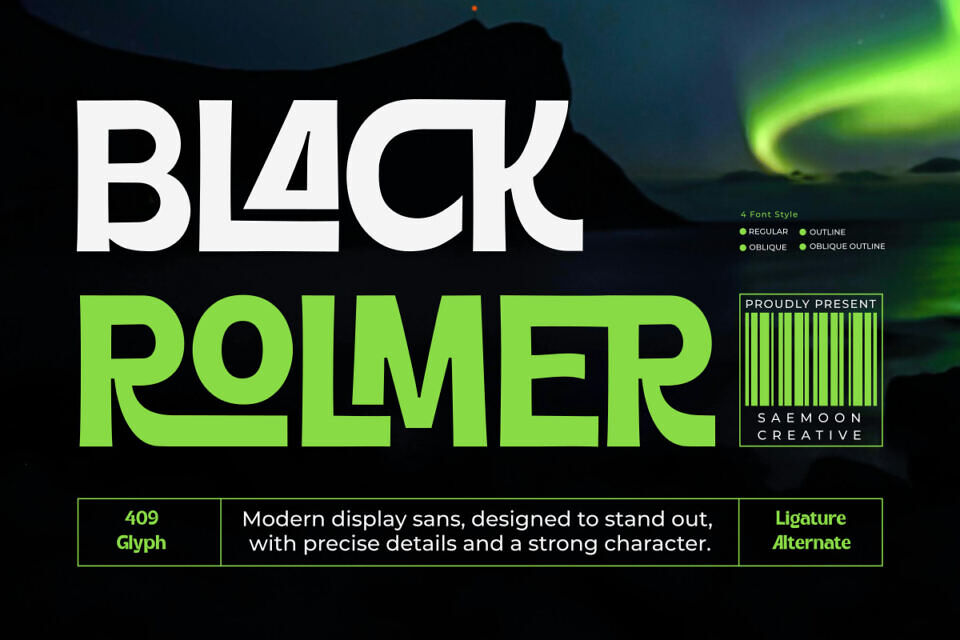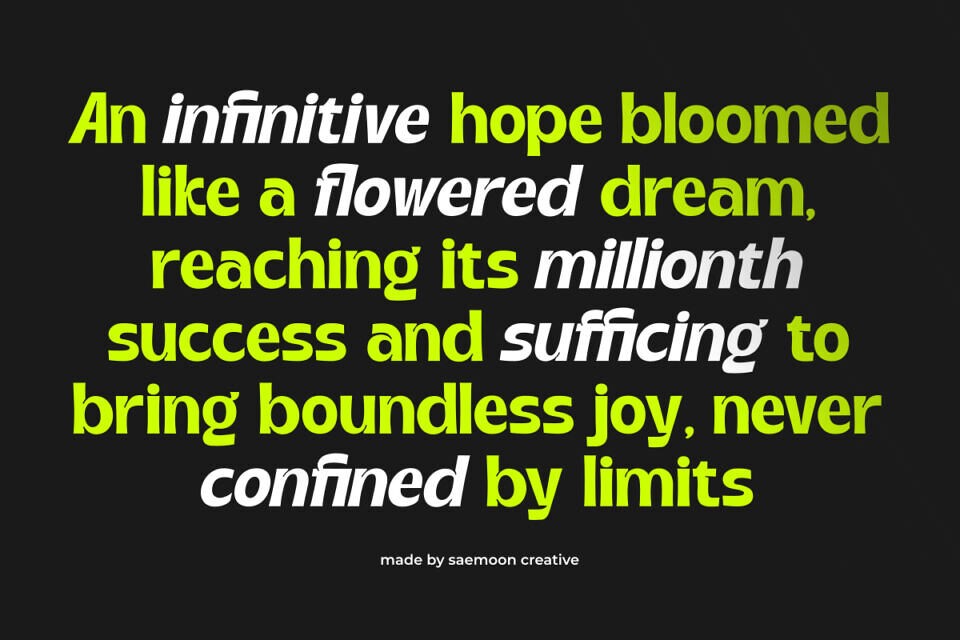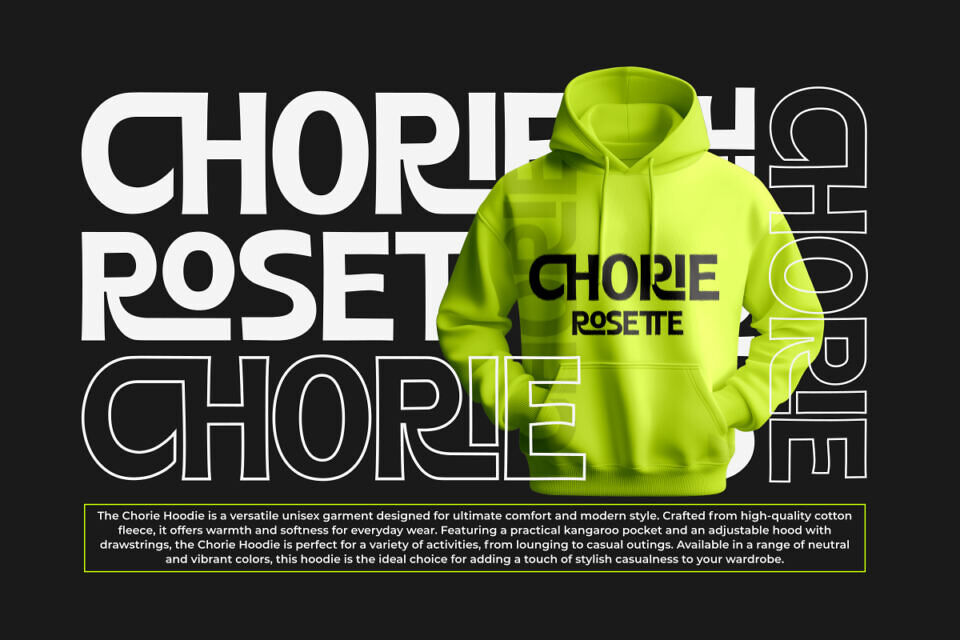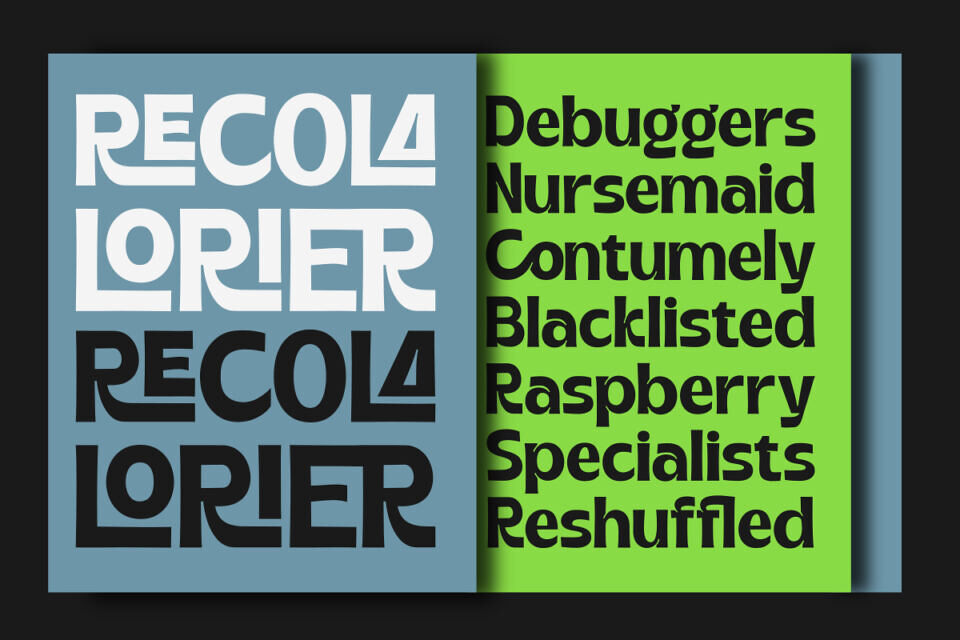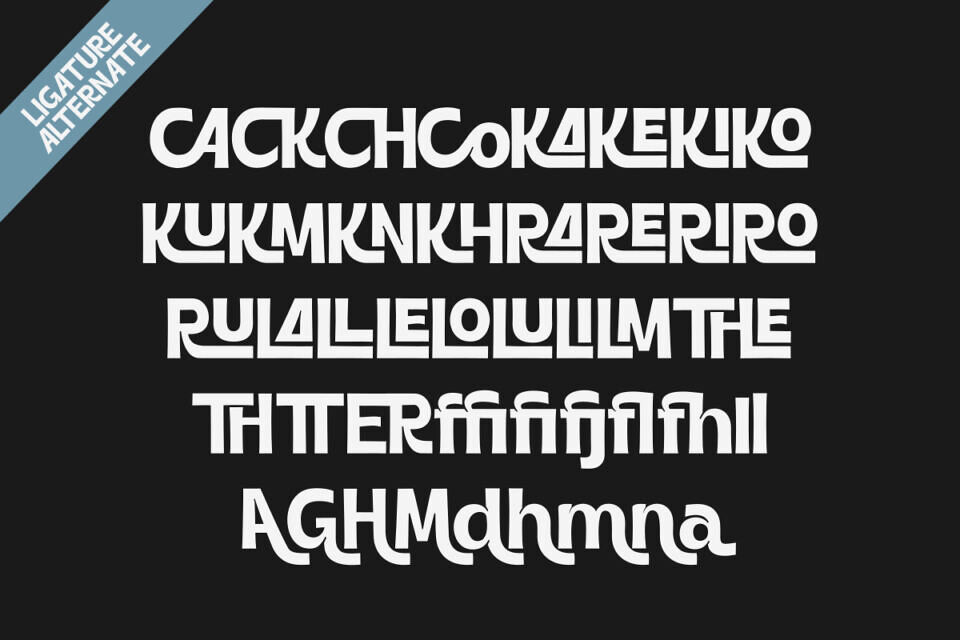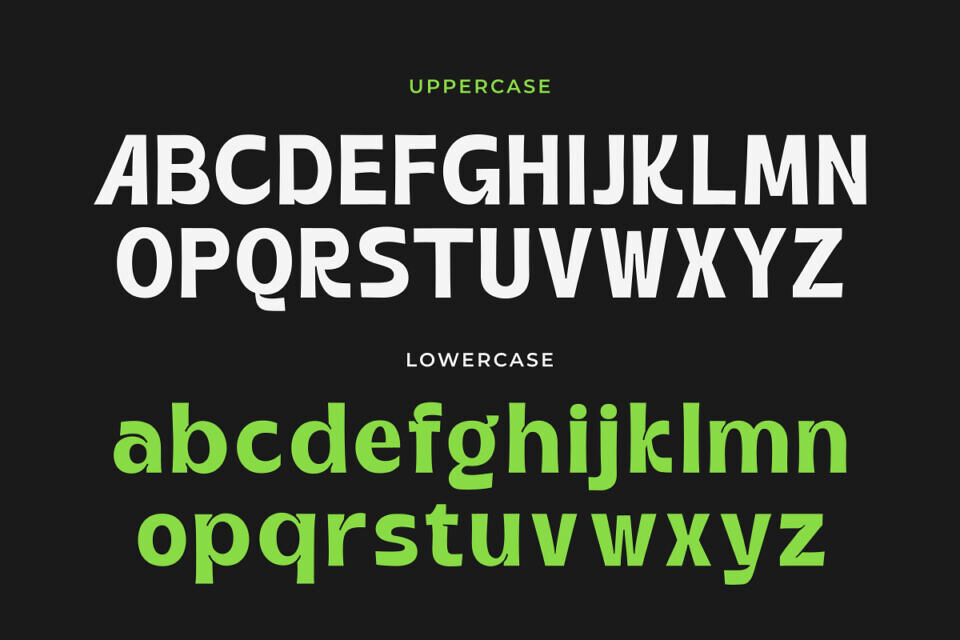
Black Rolmer Font Family
Black Rolmer is a bold display sans-serif font crafted to make a strong visual impact. With clean lines and a modern attitude, it’s perfect for standout headlines, branding, and creative designs.
What sets it apart is its rich collection of ligatures, giving your text a unique, customized feel. To suit various styles and moods, Black Rolmer includes 4 styles: Regular, Oblique, Outline, and Outline Oblique—offering versatility in one complete package.